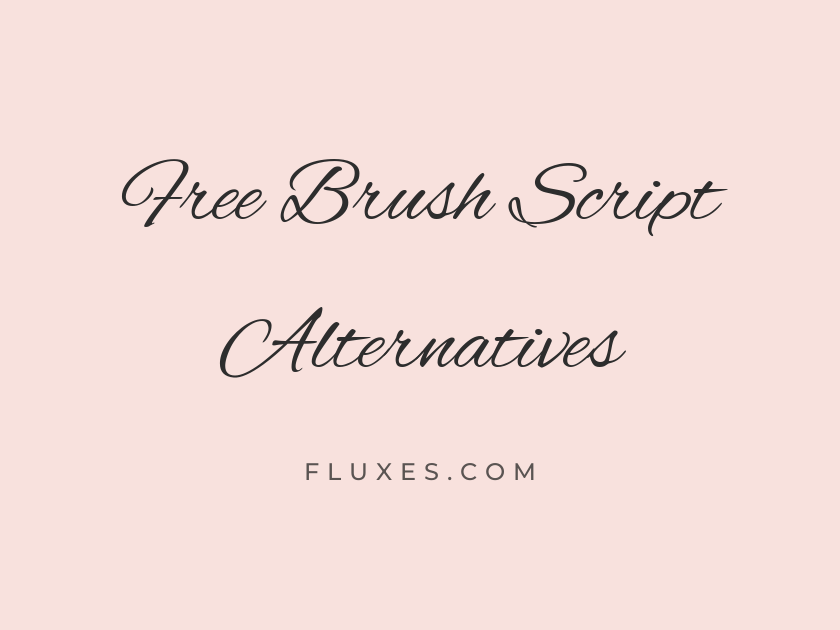
15 Best Free Fonts Alternatives to Brush Script
Brush Script has been a design-industry mainstay since the 1940s, prized for the loose, ribbon-like connection between letters that makes text feel handwritten and casual. It’s a licensed classic, though, and not something you can drop into a Google Fonts stack without paying for it. The good news is that decades of type design have produced a wide range of free brush and casual script fonts that capture that same energetic, ink-loaded feel, whether you want something for a coffee packaging label, a wedding invitation, or a lively logotype.
Signed, sealed, delivered with a flourish
Alex Brush is probably the closest match in spirit to the original Brush Script: a single flowing stroke, consistent slant, and generous connecting swashes that read as genuinely brushed rather than digitally smoothed. It works beautifully at display sizes for signatures, monograms, and invitation lettering, though its fine hairlines can thin out and disappear if you shrink it too far.
Handwritten warmth for every occasion
Dancing Script is the workhorse of the free script world, bouncy and rounded with exaggerated ascenders that give it real personality without tipping into illegibility. Its bold weight in particular has enough heft to stand in for Brush Script on packaging and headers where a thinner script would get lost.
Bold brush strokes for confident branding
This one leans heavier and more confident than most alternatives on this list, closer to a marker than a fine brush. Kaushan Script suits logotypes and app icons where you need a script that still reads clearly from across a room, and it pairs well with a plain sans body font to keep the overall look from feeling too busy.
Retro soda-shop lettering with a smile
Yellowtail has a distinctly retro, mid-century feel, all rounded loops and friendly curves that recall old soda labels and diner signage. It is not the most versatile script here, but for a nostalgic branding project it hits a note that more formal scripts cannot.
Surf shop signage and beachside branding
Originally drawn for a Southern California surf shop, Pacifico carries that laid-back, hand-lettered looseness in every curve. It reads more casual than a traditional brush script, so it fits logos and headlines for lifestyle brands better than formal stationery.
Delicate script for elegant invitations
Sacramento is thin, tightly monolinear, and closer to a classic script than a brush, which makes it an interesting counterpoint if you want the connected-letter feel of Brush Script without the ink-blot texture. It shines in small doses, like a name on a business card or a short line beneath a logo, but its fine strokes get muddy at very small sizes on screen.
Casual notes and everyday charm
There is an easy, unforced quality to Satisfy that makes it read like a quick handwritten note rather than a formal signature. It sits at a nice middle weight between the delicate scripts and the heavier brush styles, so it slots comfortably into greeting cards, packaging, and social graphics alike.
Graceful calligraphy for wedding stationery
Allura leans further into calligraphy than brush lettering, with long, elegant swashes and a formal rhythm that suits wedding suites, certificates, and monograms. It asks to be set large and given room to breathe rather than crammed into body copy.
Elegant flourish for formal announcements
Great Vibes shares Allura’s formal calligraphic spirit but with a slightly more upright, controlled stance. Designers often reach for it as a pairing partner alongside a serif for save-the-dates and certificates rather than as a stand-in for a looser, more casual brush script.
Friendly cursive with a personal touch
Marck Script feels like a well-practiced hand rather than a brush, upright and legible with just enough looseness to avoid looking mechanical. It is a solid pick when a project needs a script that reads clearly in longer phrases, such as a quote or a short paragraph, where more decorative brush fonts would struggle.
Rounded brush charm for friendly brands
Courgette is soft, rounded, and a little bit playful, sitting somewhere between a script and a hand-lettered display face. It works nicely on food and beverage packaging where Brush Script’s classic Americana feel is welcome but a lighter, friendlier touch is needed.
Leckerli One
Sweet script lettering for bakery labels
Leckerli One reads more like brush-drawn display lettering than a true script, with thick, confident strokes and a bit of old-fashioned candy-shop charm. It is best used sparingly, as a headline or logotype element rather than for running text.
Genuine handwriting for personal messages
This is one of the more authentically handwritten options here, uneven and slightly imperfect in a way that feels genuinely personal rather than designed. Homemade Apple suits greeting cards, personal blogs, and any project trying to avoid a polished, corporate look, but it is not built for long passages of text.
Give scripts room to breathe. Extra letter spacing rarely helps connected letterforms, but generous surrounding white space almost always does.
Between the delicate calligraphic scripts, the bouncy casual styles, and the grittier brush-marker options, there is enough range here to replace Brush Script in nearly any context, from wedding stationery to skate graphics, without spending a cent on licensing.